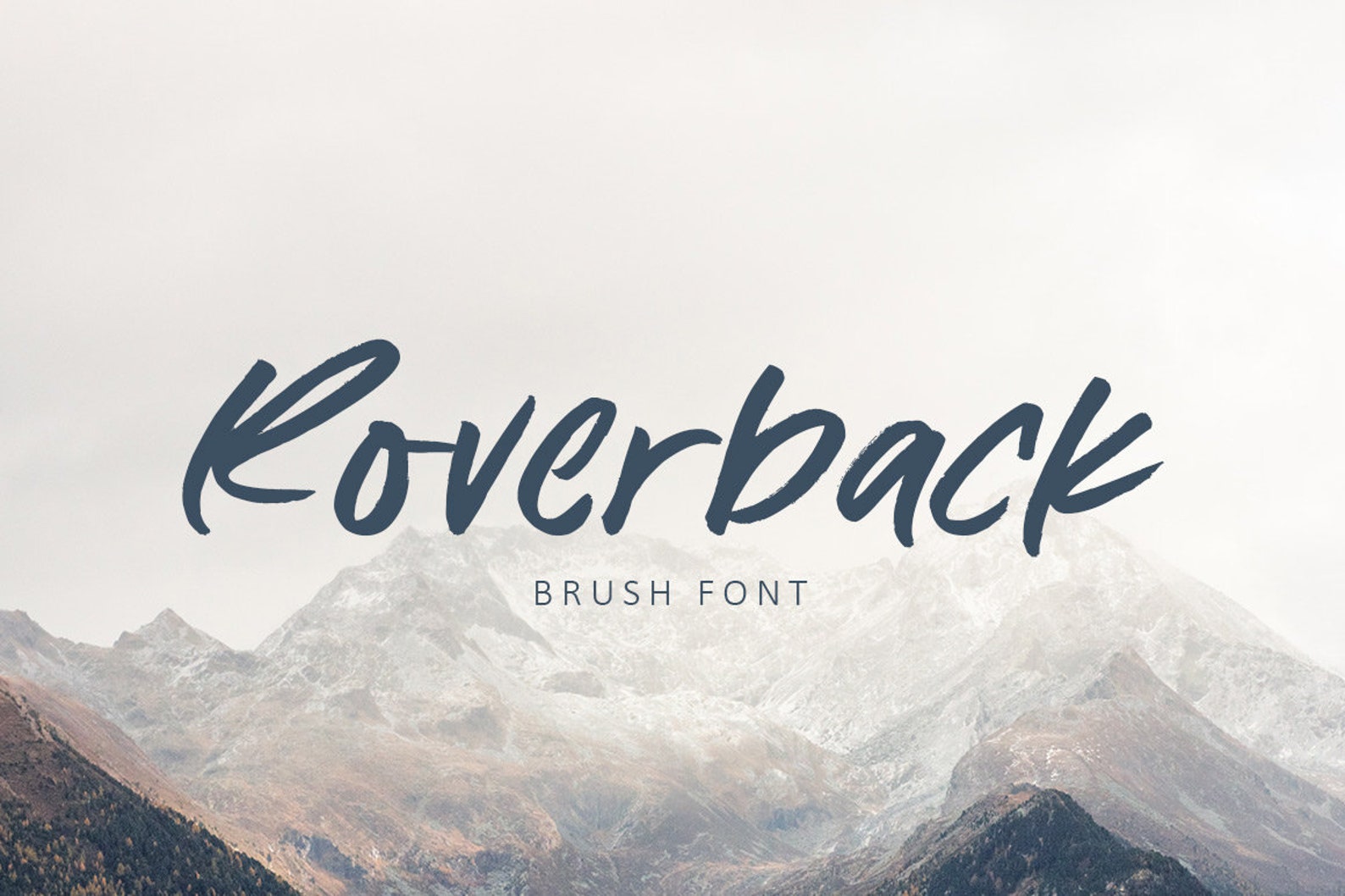
Free and Premium Quality Fonts - Best Premium FontsUse these free signatures to sign documents fill in checks or write your name for your newsletter. As a result the font you have chosen cannot be displayed properly. Hard to read most decorative fonts make the signatures block highly unreadable.
Signature fonts mimic the distinctive writing of a persons actual signature. It makes the postlogo stand out from the crowd while giving a personal touch to your design. If you want to create a more robust signature with bullets tables or borders use word to format your text then copy and paste the signature into the edit signature boxyou can also use one of our pre designed templates for your signature. Here you will find 20 beautiful well designed and authentic signature fonts to have in your toolbox ready to be used on your next design project.
Excel adds the signature line graphic object in the area containing the cell pointer. When the fancy font is not available on the recipients side it will fall back to one of the standard fonts specified in the signatures code or to a default one used by the recipient. Signature fonts are becoming a trend on personal logo designs as well as headlines on social media posts. We have 330 free signature fonts to offer for direct downloading 1001 fonts is your favorite site for free fonts since 2001.